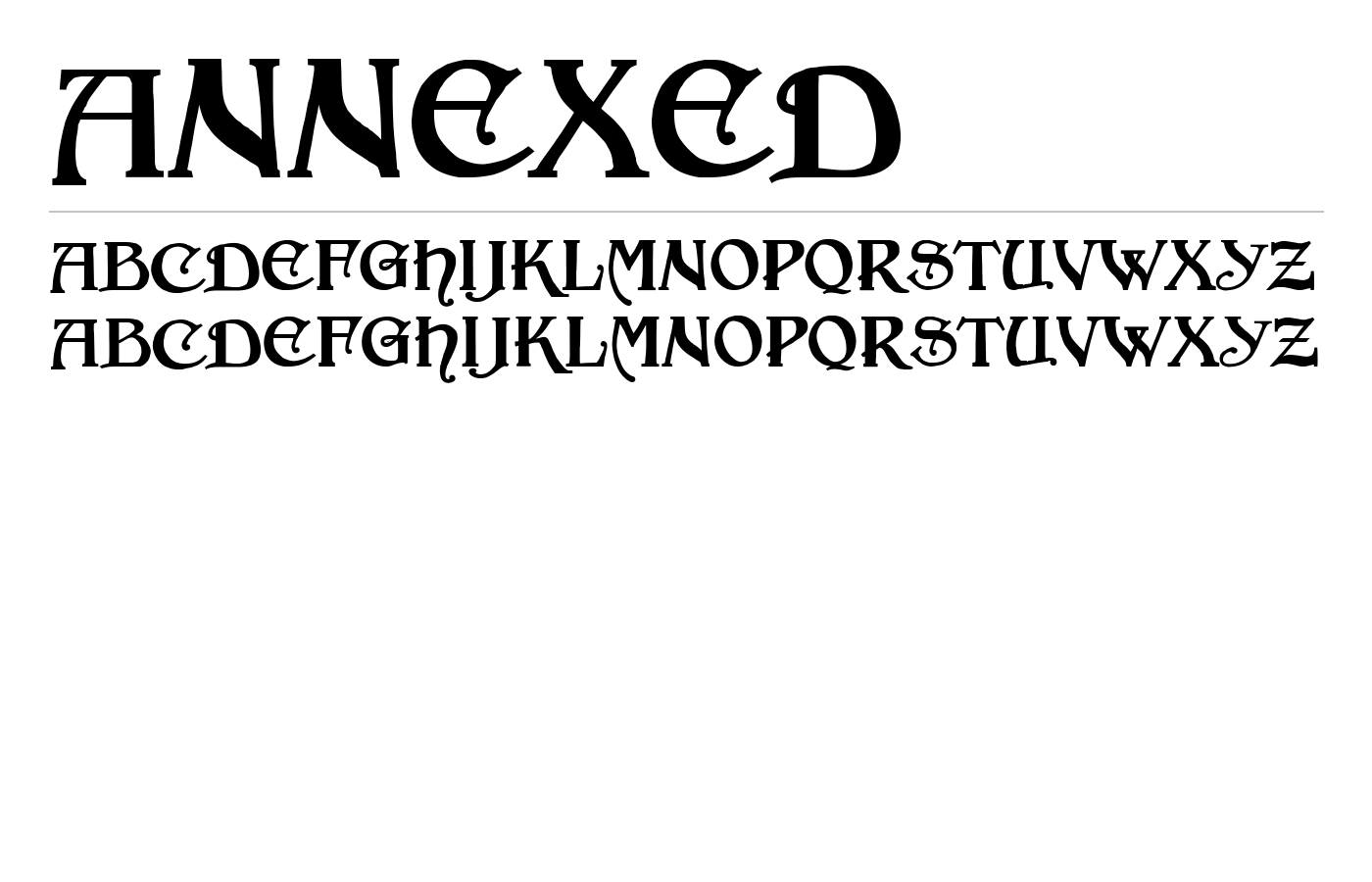
Annexed is a distinctive serif font with a vintage, almost gothic flair, characterized by its sharp, bracketed serifs and high contrast between thick and thin strokes. The uppercase letters feature unique ornamental touches that give the typeface a decorative, expressive style, making it ideal for logos, headlines, or branding that aims to evoke tradition with a bold, artistic twist. This font stands out in fashion, editorial, and packaging design where a dramatic and stylish statement is desired.
Annexed Font
About Annexed Font